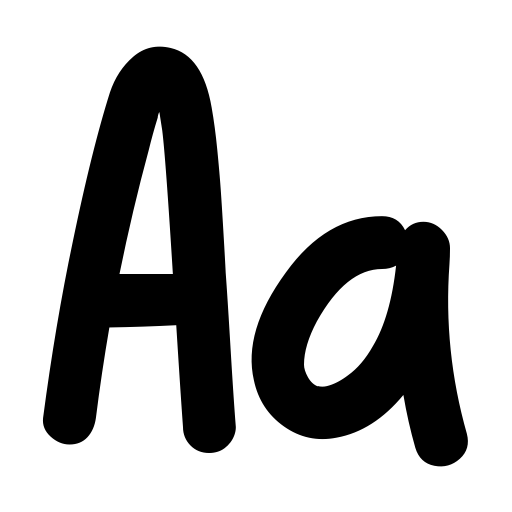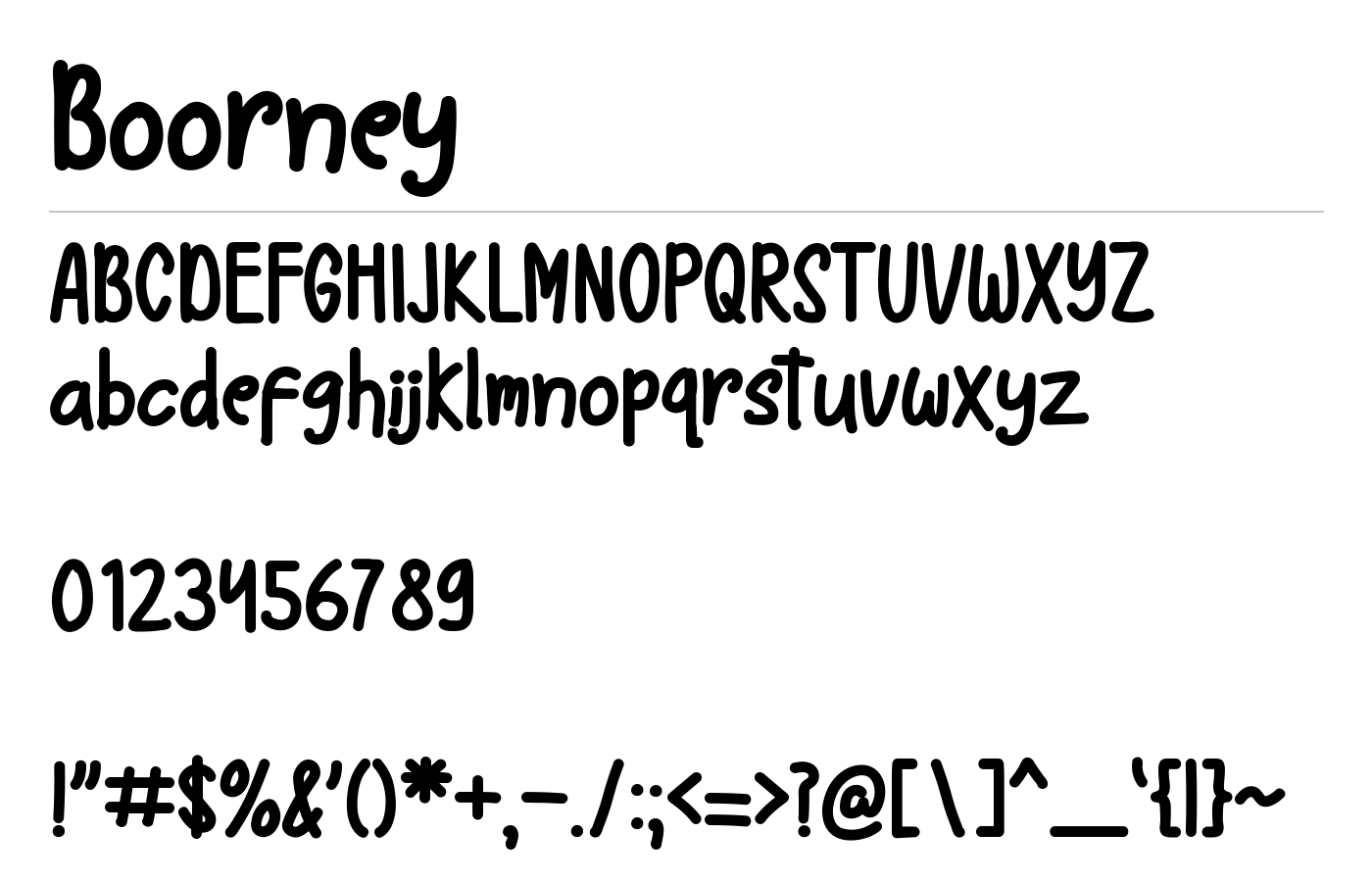
Boorney is a playful and informal sans-serif font with a hand-drawn character that gives it a friendly and approachable feel. Its rounded, slightly uneven strokes and casual letterforms make it ideal for creative projects, children's designs, and branding that seeks a fun, quirky personality. This font works best for headlines, logos, and packaging where a warm, whimsical touch is desired.
Boorney Font